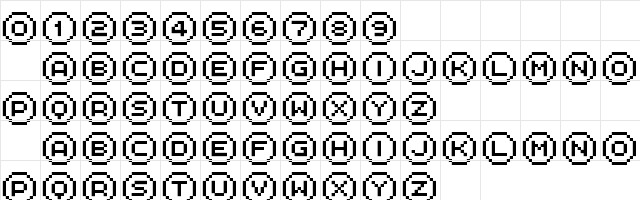
FFF Interface07 Regular
Design Context for FFF Interface07 Typeface
FFF Interface07 takes a measured approach to typography — its balanced proportions and neutral character make it a reliable workhorse for both digital and print work.